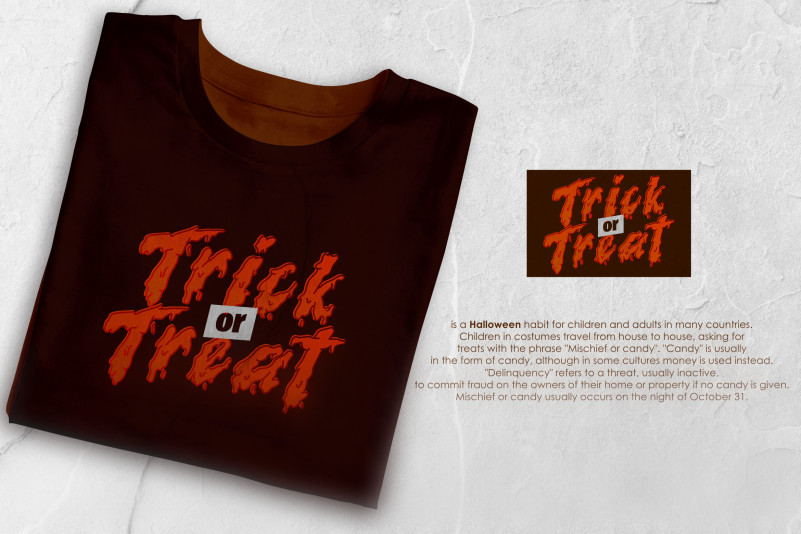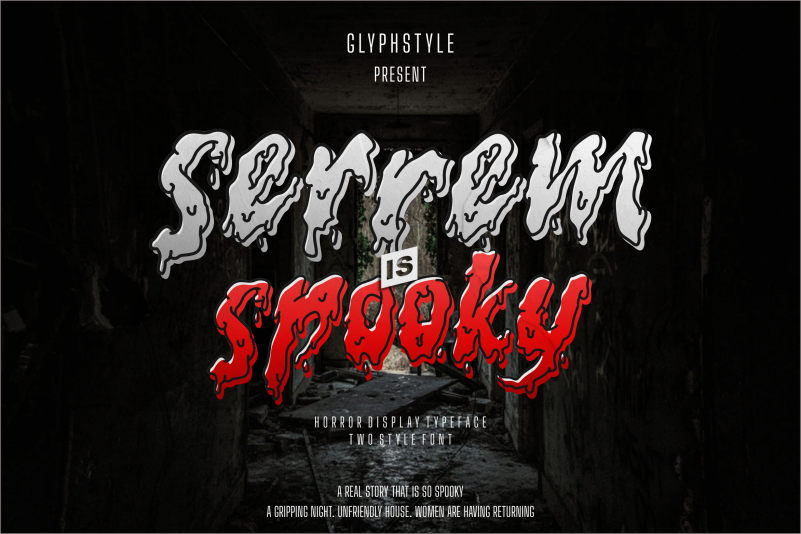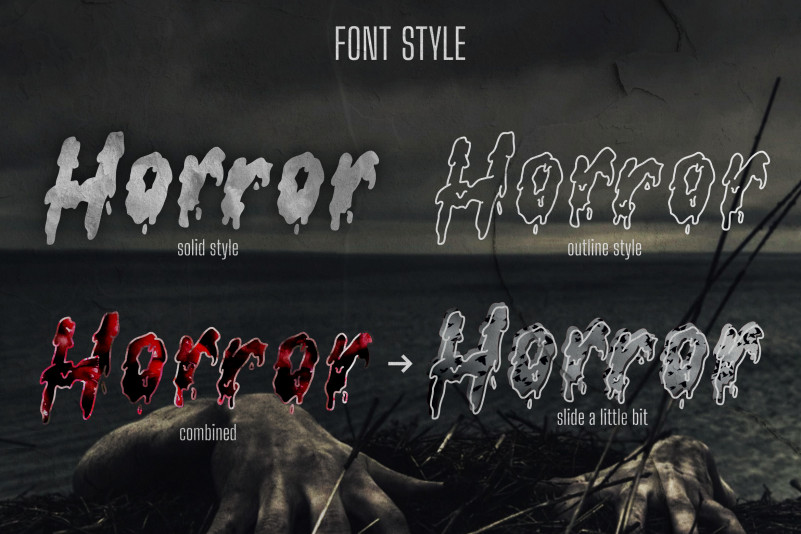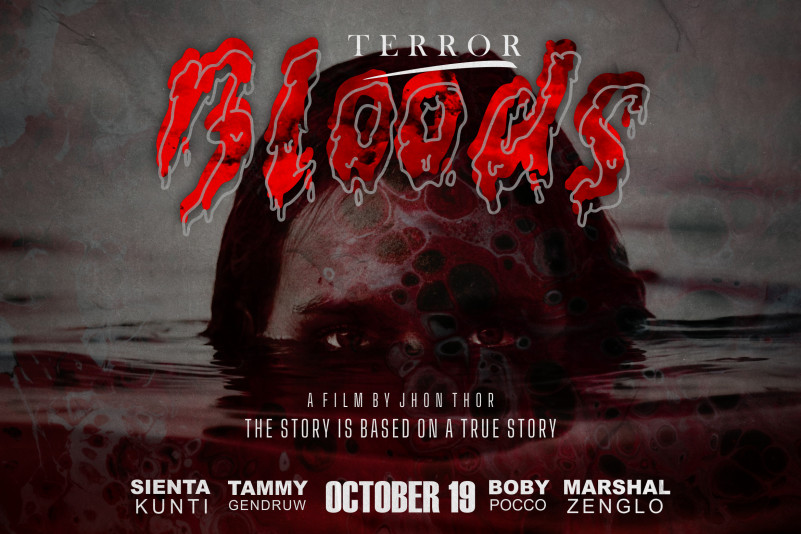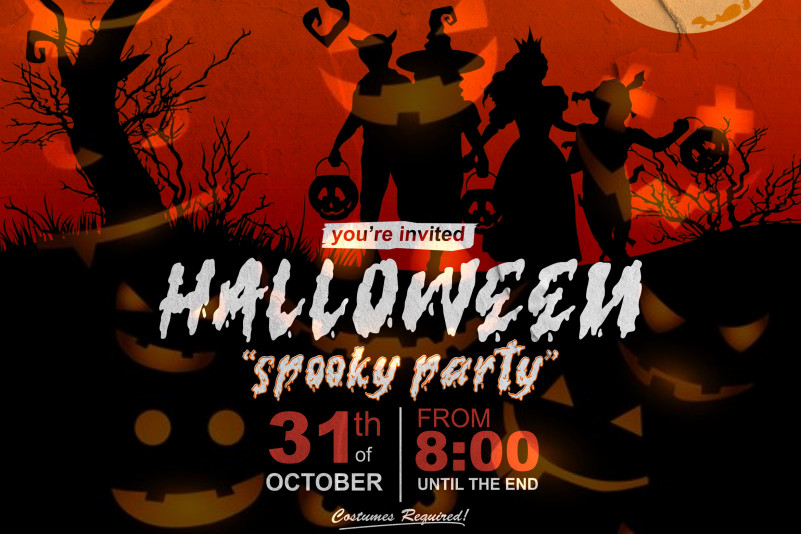
Serrem Display Font is a horror-themed display font. Serrem font with a terrible form of blood droplets. there are two styles, outline and solid, very suitable for halloween or horror themed projects. Serrem Display can be used for film covers, branding and logos, social media posts, advertisements, business cards, clothing products, quotes, magazine covers, labels, photography, watermarks, invitations, stationery, and any project that has horror-themed writing.
its this font you do not need to work twice to make an outline of letters, because this font provides 2 style